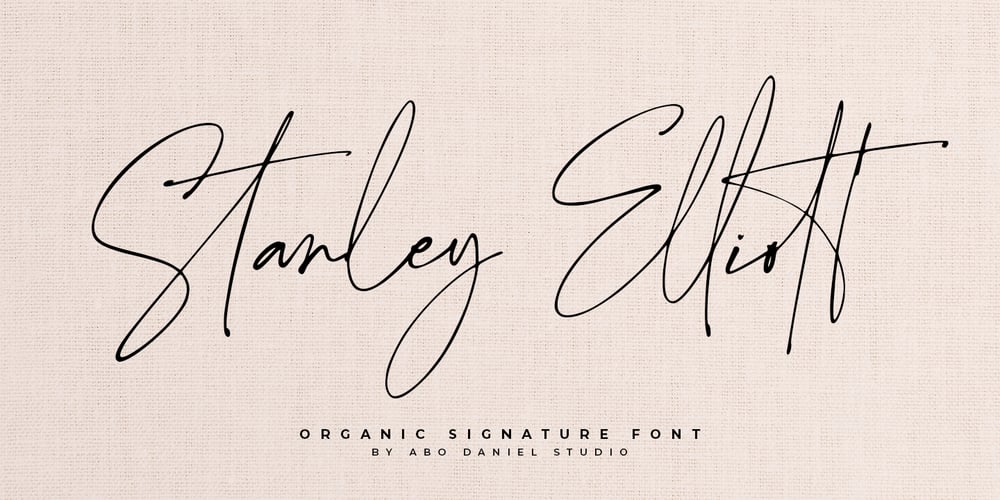
Stanley Elliott Font Family was designed by Abo Daniel and published by Abo Daniel. Stanley Elliott contains 1 styles and family package options. STANLEY ELLIOTT is an organic signature font.Add a classy touch to your designs with Stanley Elliott.Crafted to emulate the fluidity of natural handwriting, this font captures the essence of a handwritten signature with its smooth, flowing lines and unique character.It is perfect for branding, logos, cards, wedding invitations and many moreStanley Elliott looks more impressive and natural with 252 easy-to-access ligatures, even if you only type it.It is also equipped with a swash line that will further add to the natural value of the typed writing.It is multilingual support and also contains all the characters and symbols you’ll ever need, including all punctuation and numbersregards,Abo Daniel Studio